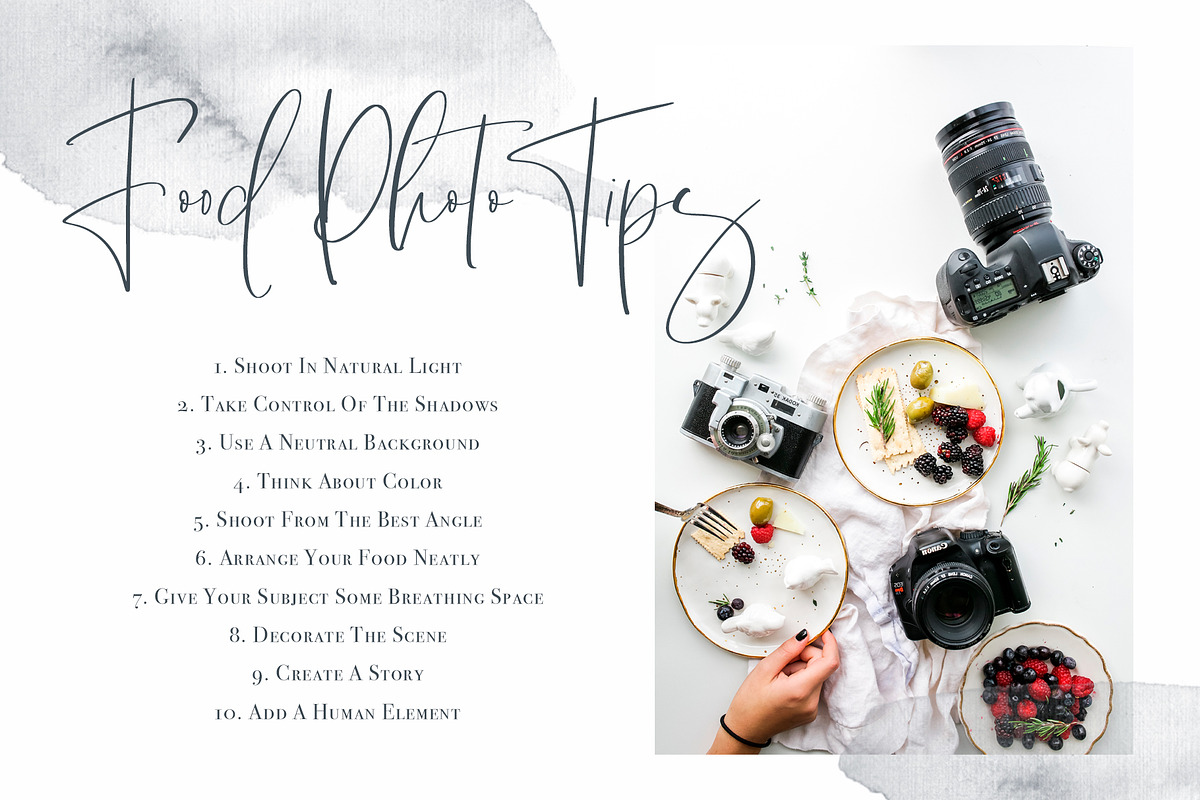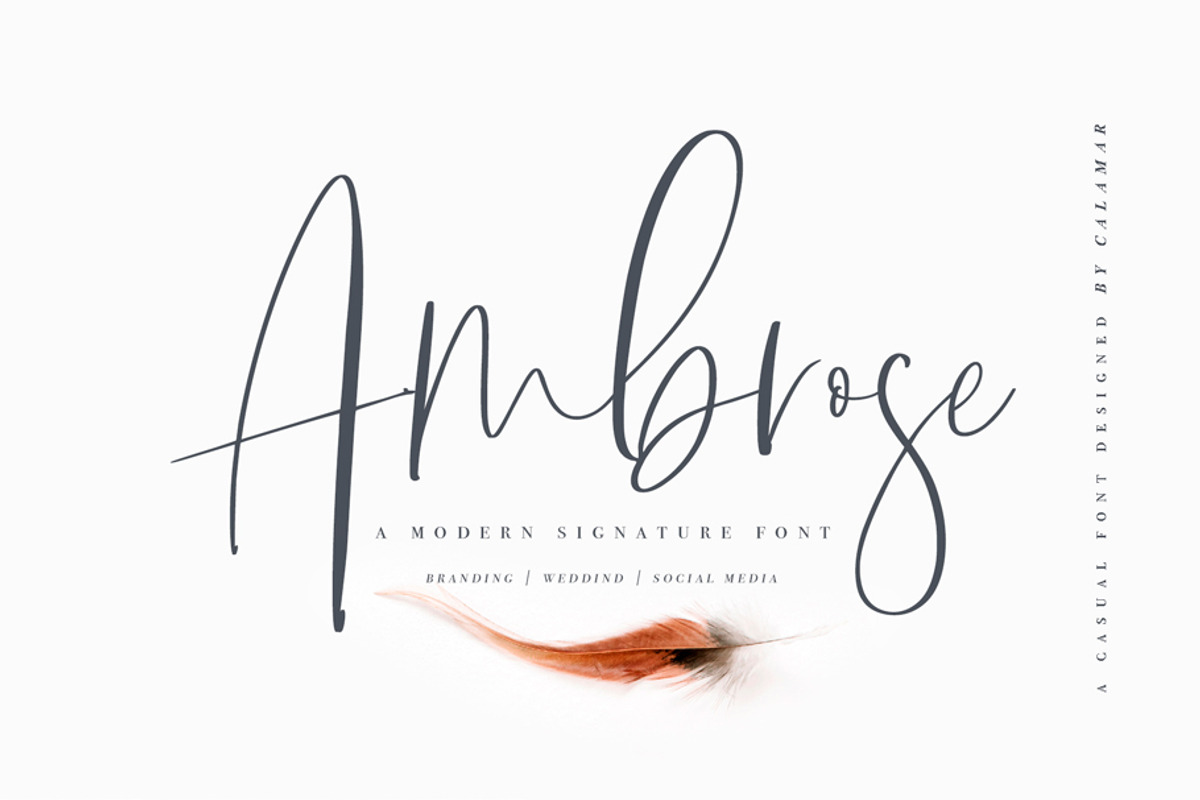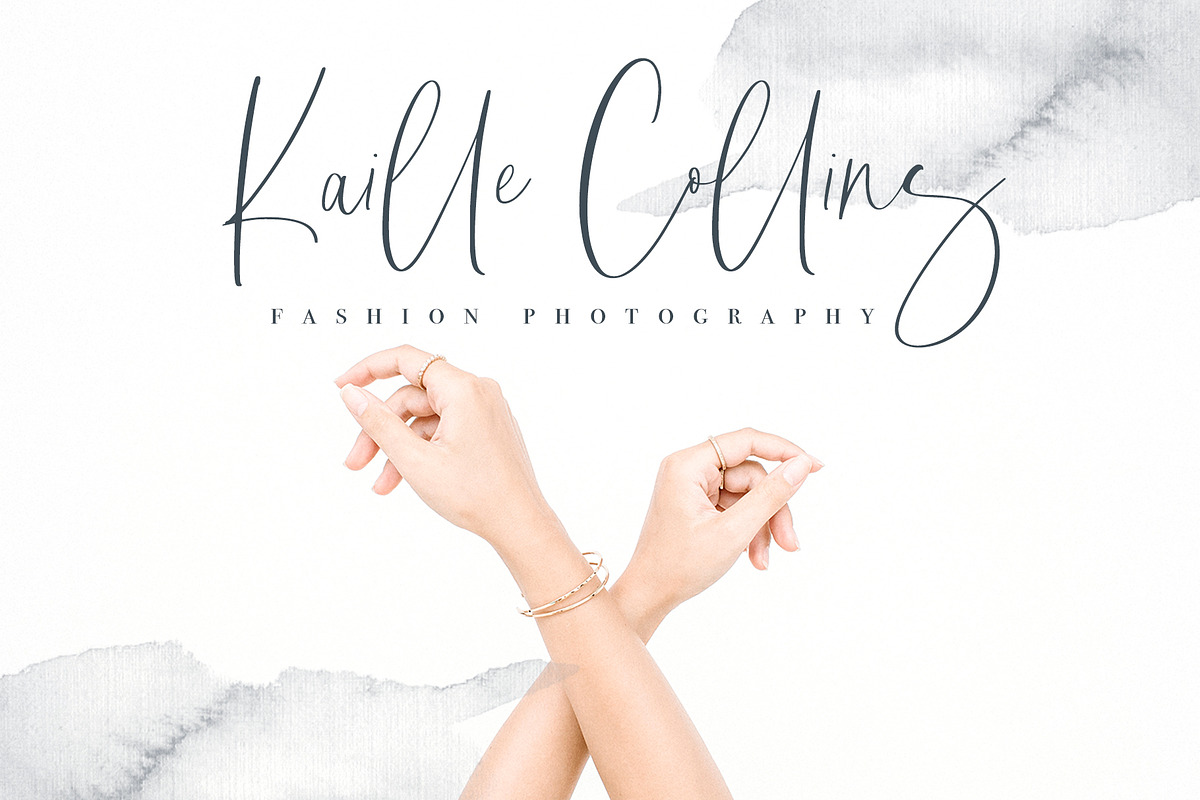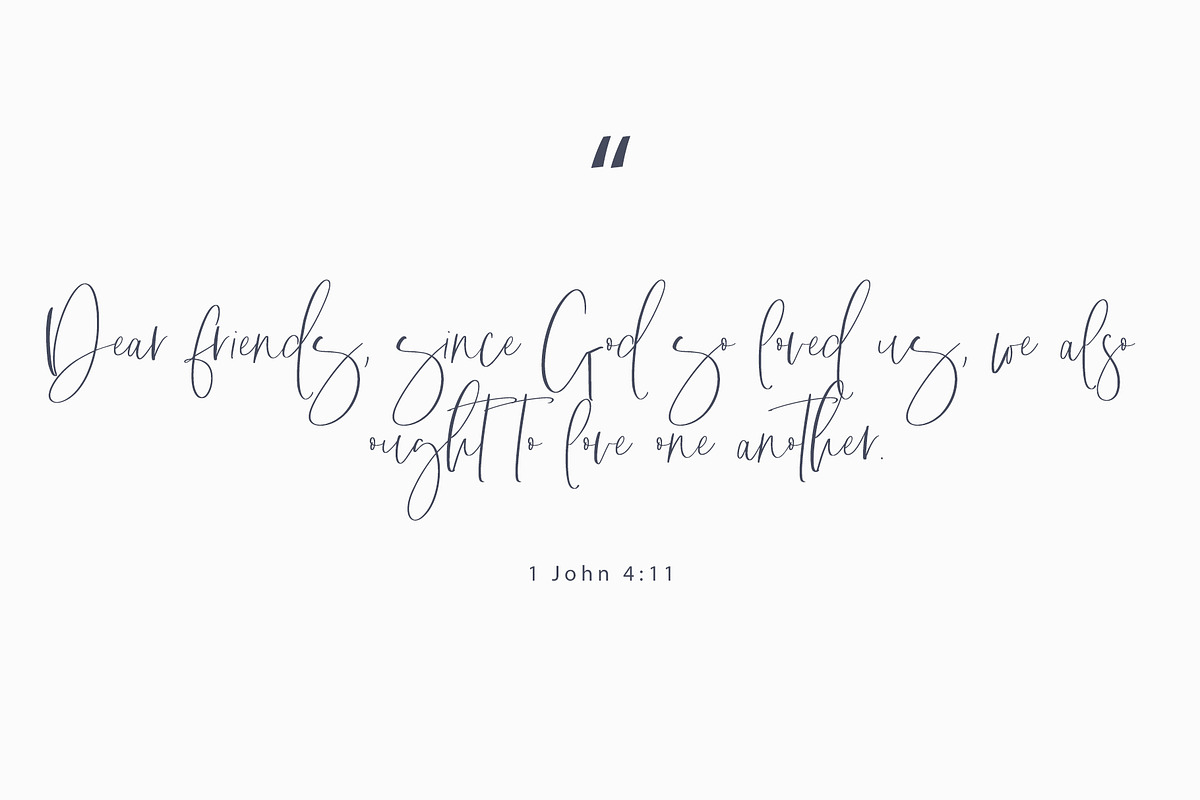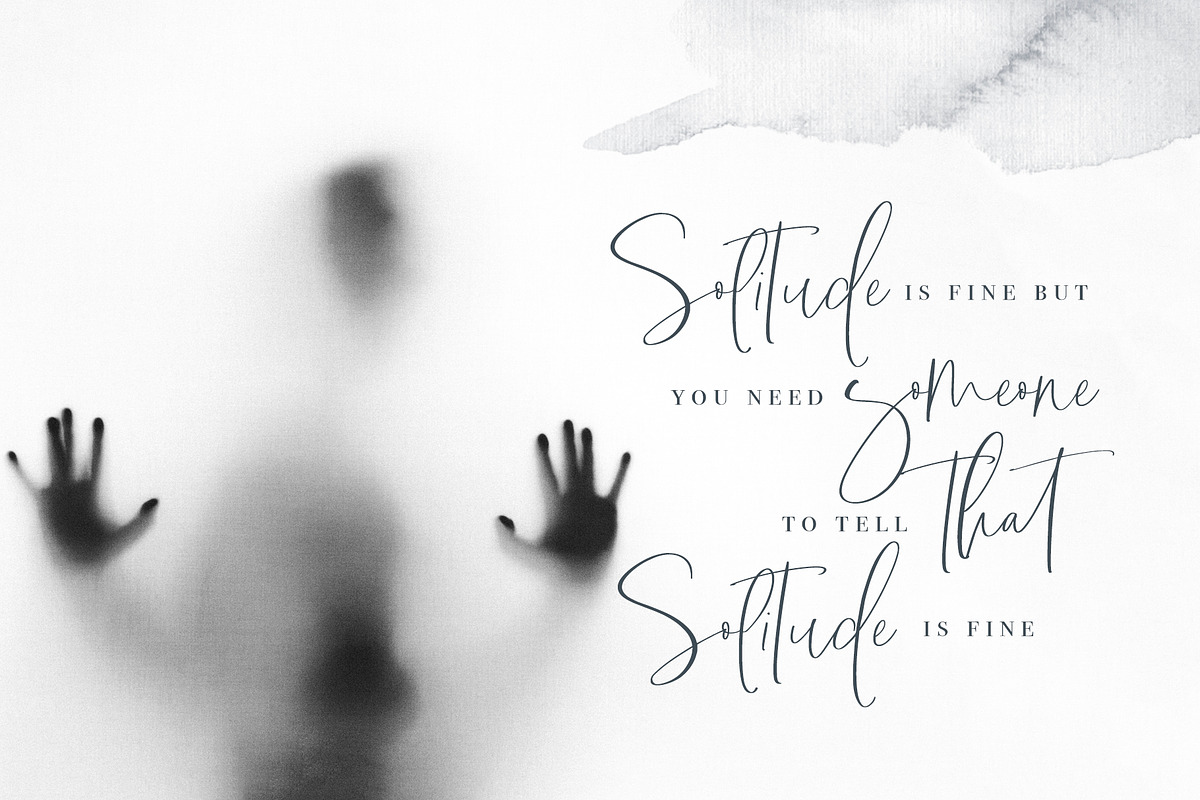
Ambrose Font
Say hello to "Ambrose Font", a handwritten signature font that is perfect for branding, social media headers, product packaging, wedding invites and cards and so on. Also the font contains ligatures and stylistic alternates to perfectly re-create natural calligraphy.
- Also the font contains ligatures and stylistic alternates to perfectly re-create natural calligraphy.
- Ambrose Font includes Upper and Lowercase Basic Characters, Numbers and Punctuation.
Why Ambrose Font is worth a look
Ambrose Font by Calamar Studio fits naturally into Branding, posters, packaging, typography.